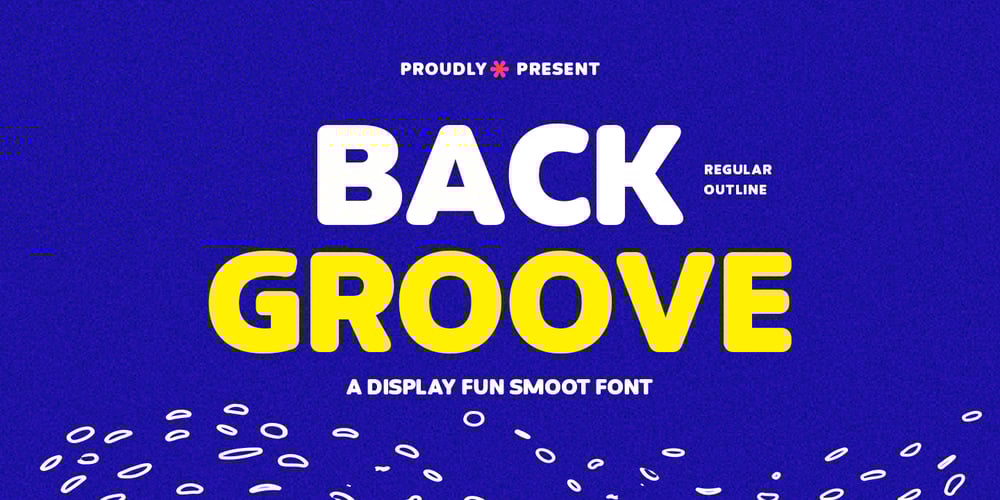
Back Groove Outline Font Family was designed by khaidir and published by Gatype. Back Groove Outline contains 2 styles and family package options. The Back Groove font is smooth in totality and elegance. One of the best releases earlier this year, drawn with pinpoint accuracy. Back Groove has the perfect simplicity and refinement for your next project.Back Groove It perfectly represents a precise and vintage aesthetic. Because it’s guided by Outlen’s Back Groove I recommend this font for your next celebrations, logos, invitations, and home decor projects that need a touch of compact alternative combinations!Check it out and enjoy!